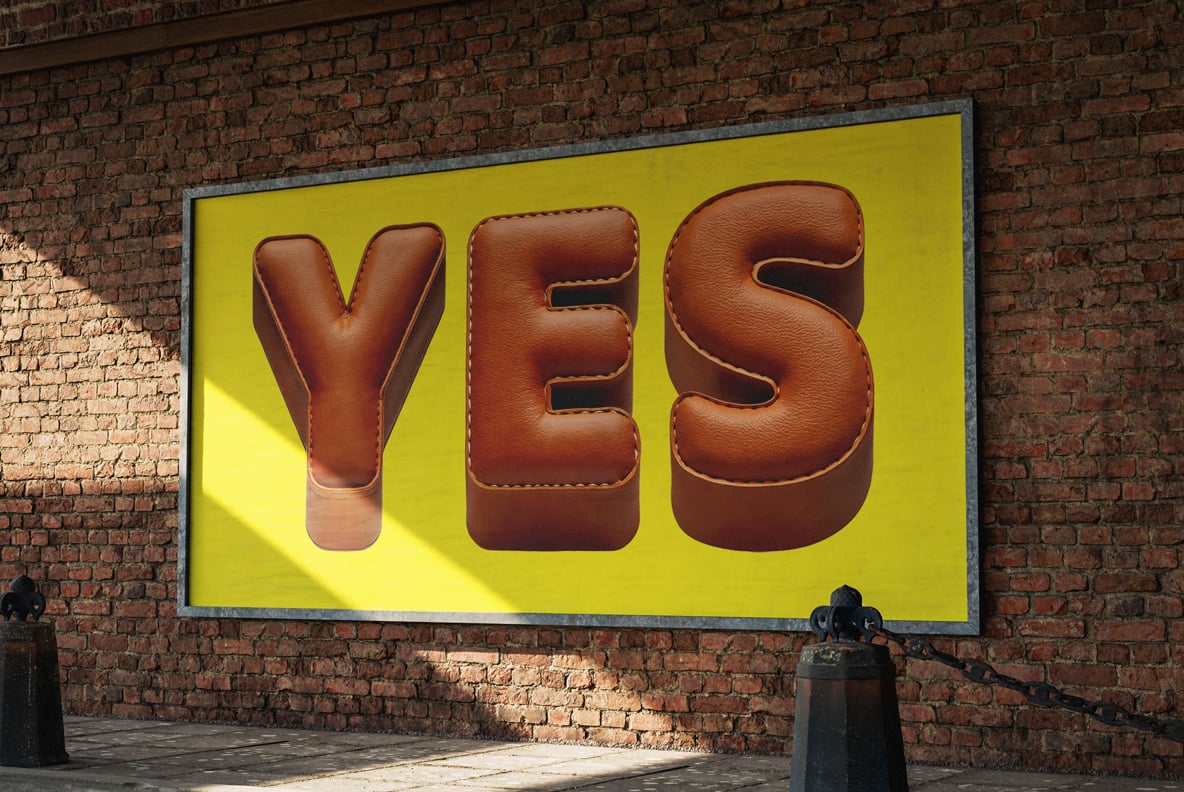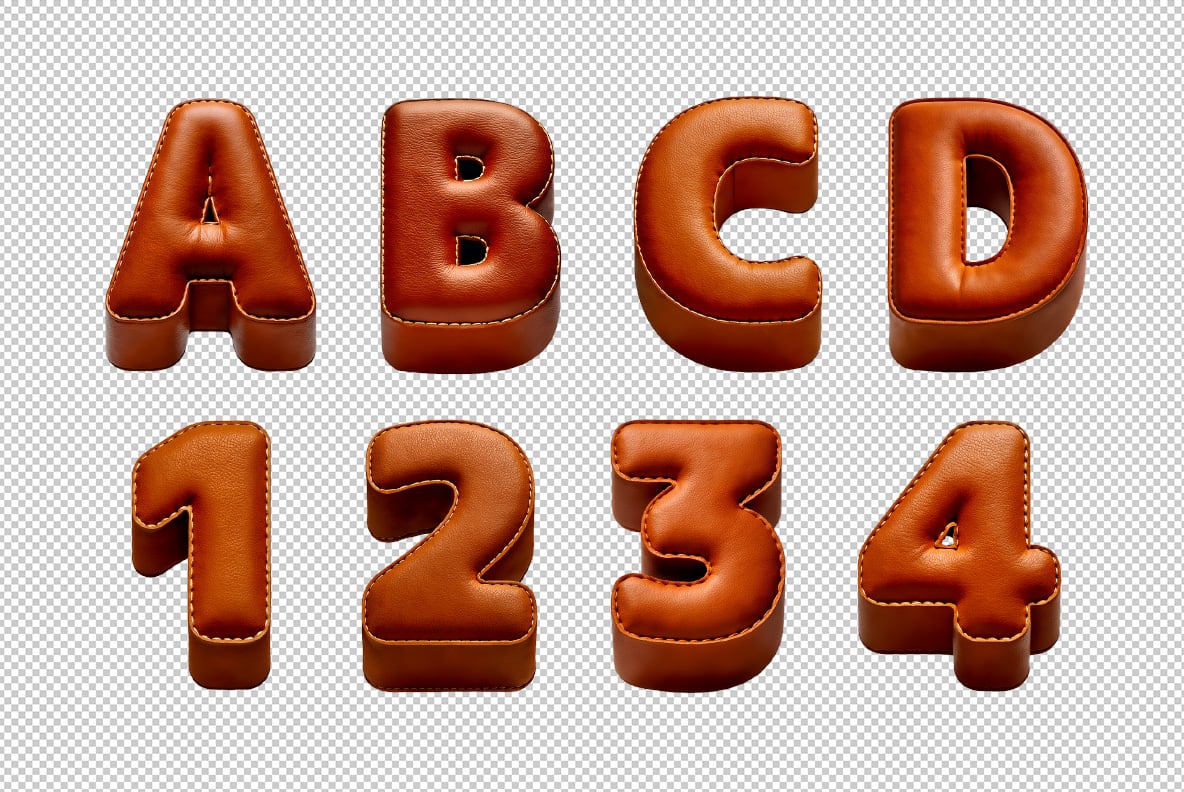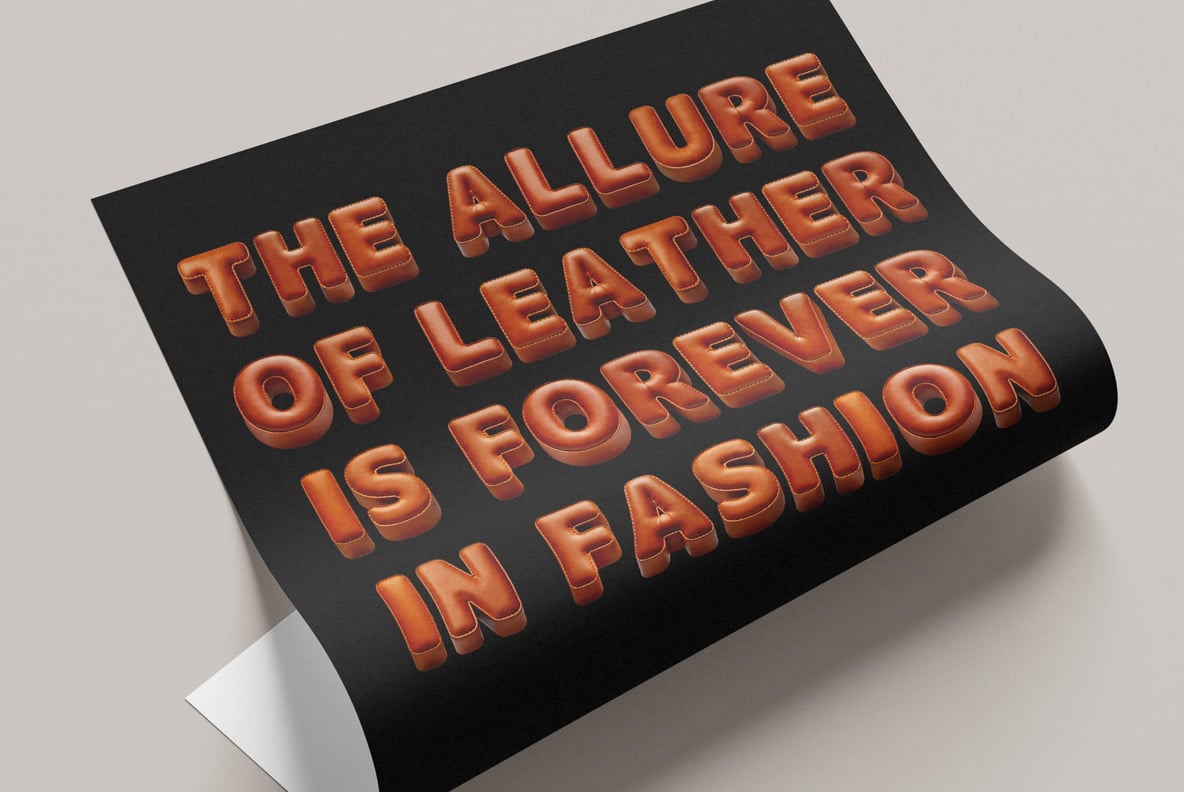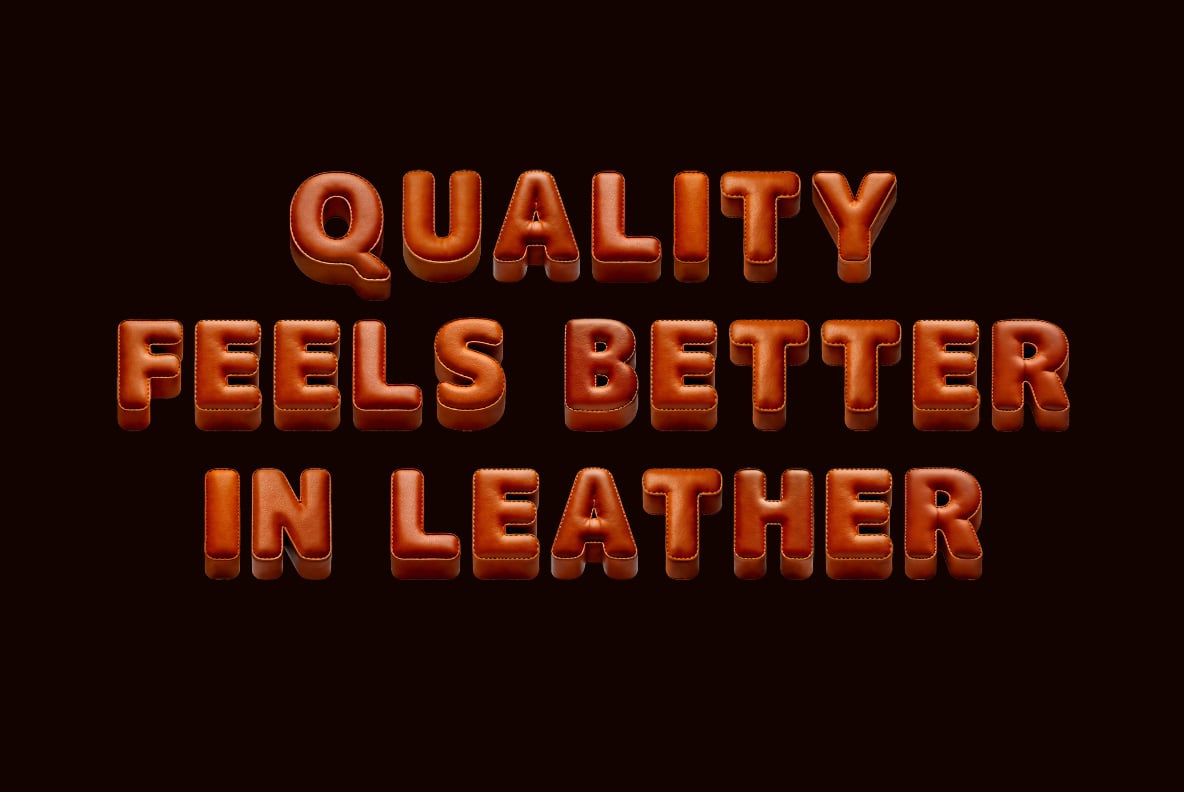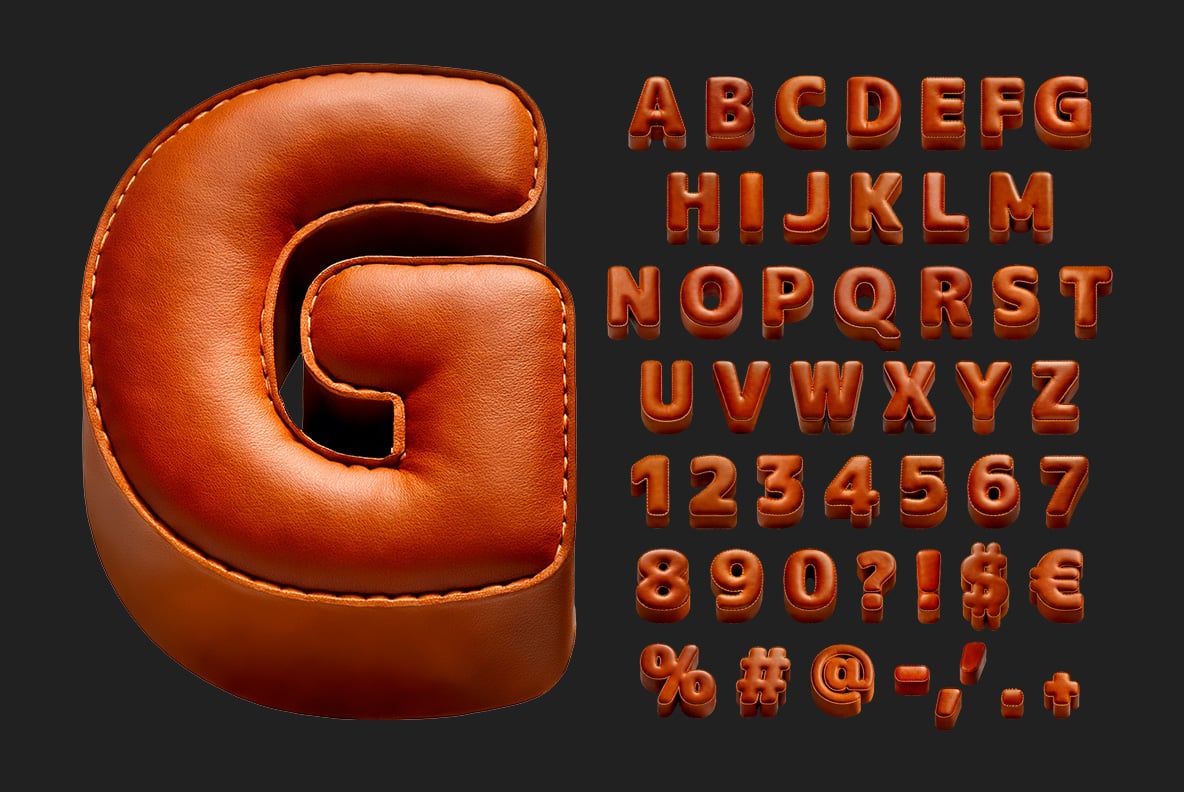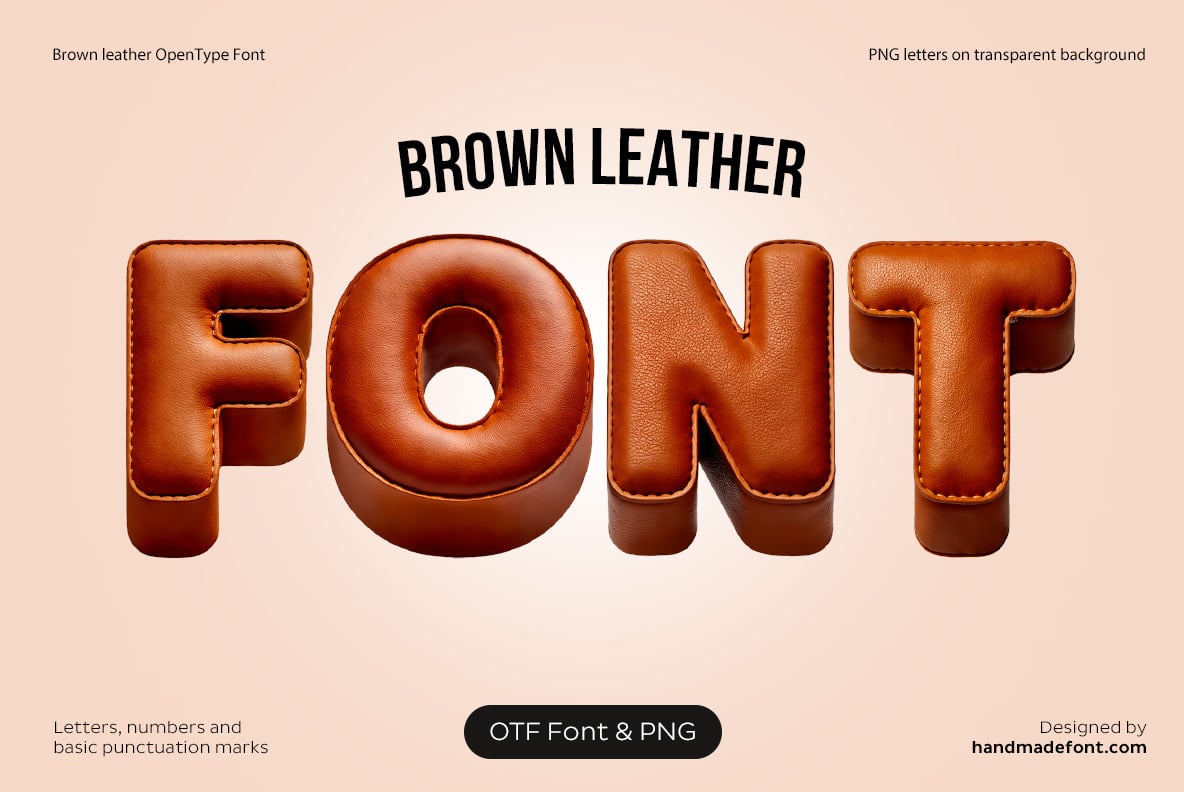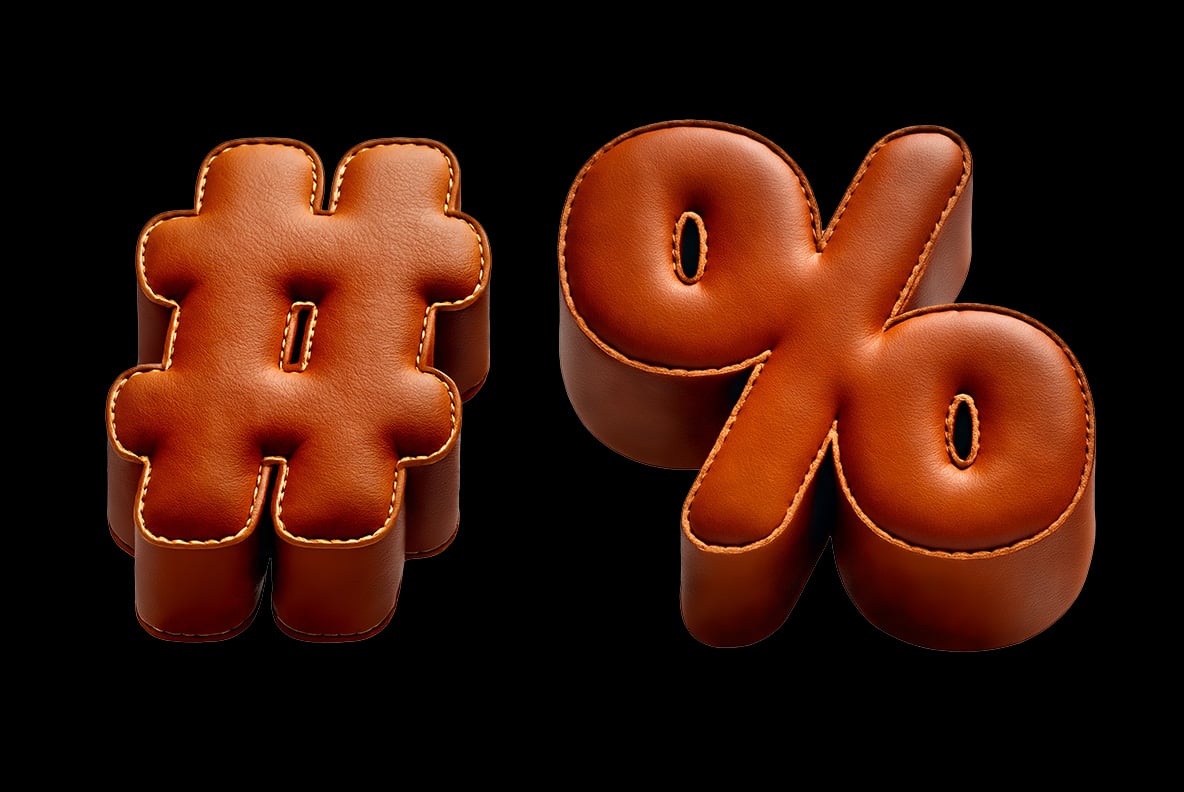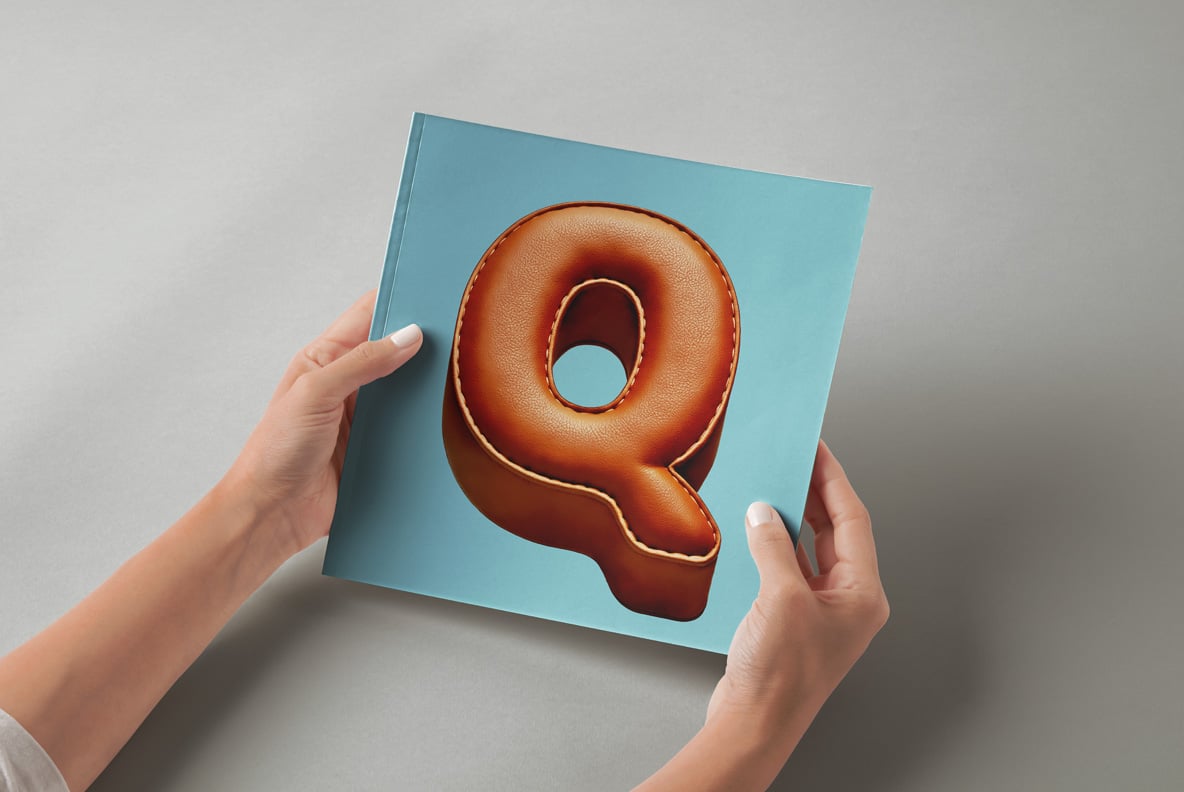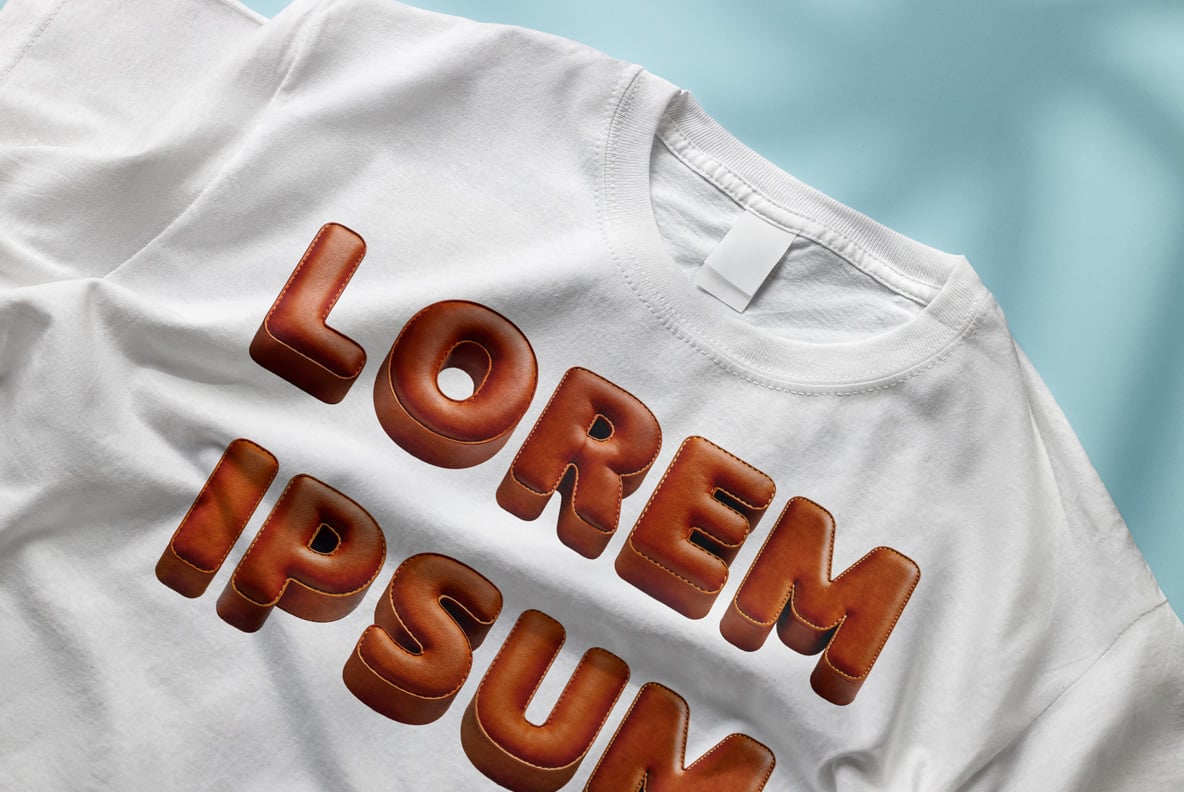
Brown Leather Font
Brown Leather Font is a stylish and textured typeface that brings the richness of genuine leather to your designs. Perfect for fashion branding, luxury themes, or creative projects, this leather alphabet adds a touch of sophistication and rugged charm. Its realistic detailing mimics the texture and warmth of high-quality leather, making it an ideal choice for logos, posters, social media, or any design needing a bold, fashionable edge.
A high definition OpenType Font. Contains uppercase characters, numerals and basic punctuation. (Draw height roughly 800 pixels). All letters and glyphs that comprises this font you can see on the preview.